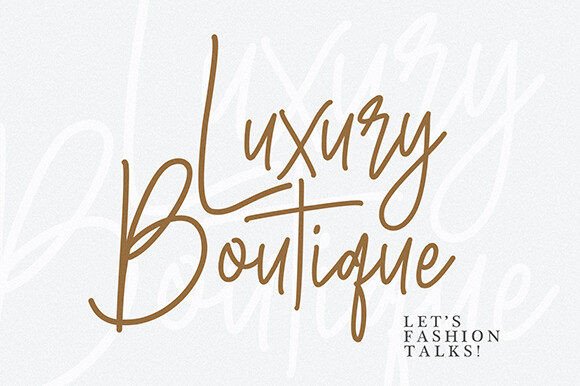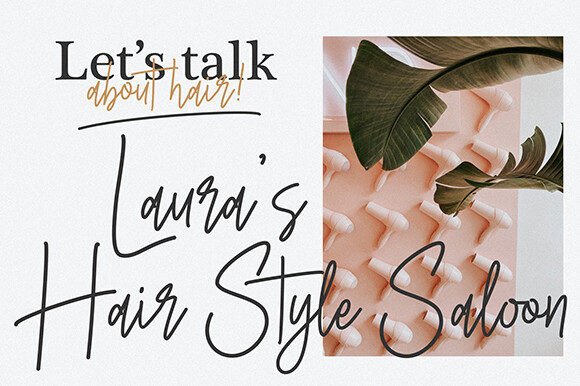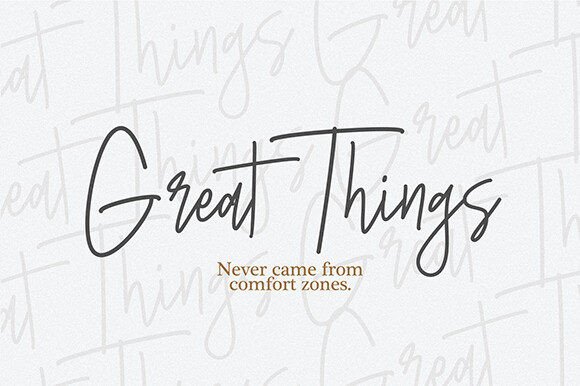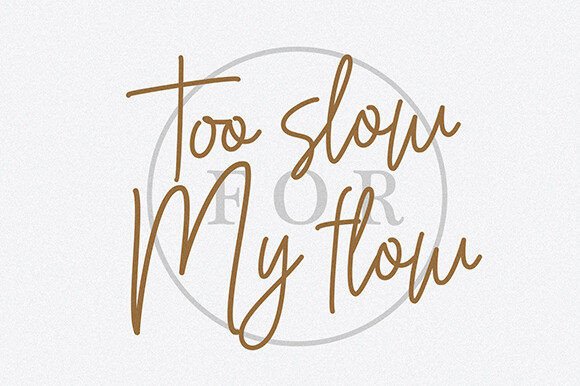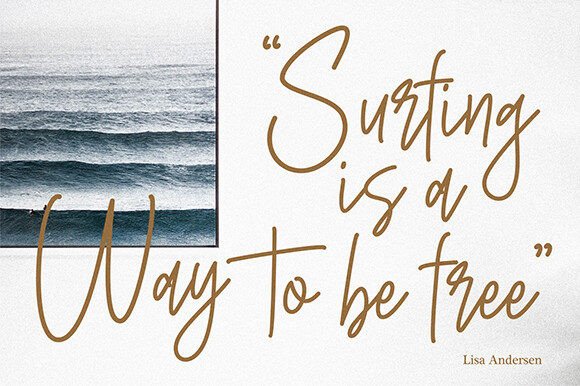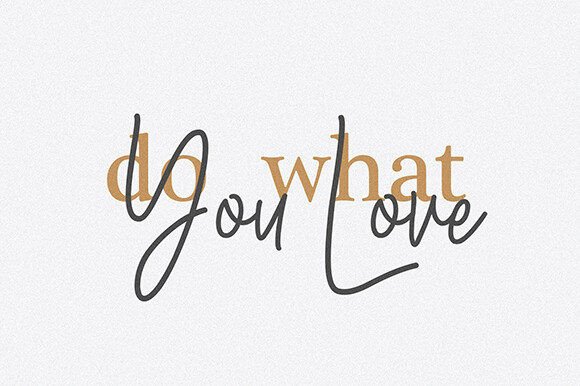
Betterhost Font: Elevate Your Designs with a Touch of Elegance
In the world of typography, a font can make or break a design. For designers and crafters looking to add a touch of elegance and sophistication to their projects, the Betterhost font is an excellent choice. This modern and fresh script font boasts a beautiful handwritten style that exudes natural charm and style.
What Makes Betterhost Font Stand Out?
Betterhost is a stunning Monoline script font that is perfect for any project that requires a handwritten touch. Its elegant and stylish design makes it an ideal choice for a wide range of applications, including wedding invitation card designs, logotypes, business card designs, advertisements, product designs, stationery, product packaging, quotes, and more.
Key Features of Betterhost Font
- Handwritten Style: Betterhost font features a beautiful handwritten style that gives it a natural and elegant look.
- Monoline Script: The font’s monoline script design makes it perfect for adding a touch of sophistication to any project.
- PUA Encoded: Betterhost font is PUA encoded, which means you can easily access all the amazing glyphs and ligatures.
- Versatile: The font is suitable for a wide range of projects, from wedding invitations to product packaging.
Use Cases for Betterhost Font
The Betterhost font is incredibly versatile and can be used in various design projects. Here are some use cases where this font truly shines:
- Wedding Invitation Card Designs: Add a touch of elegance to your wedding invitation cards with the Betterhost font.
- Logotypes: Create stunning logotypes for your brand or business with this beautiful script font.
- Business Card Designs: Stand out from the crowd with professionally designed business cards featuring the Betterhost font.
- Advertisements: Use the Betterhost font to create eye-catching advertisements that grab attention.
- Product Designs: Add a touch of sophistication to your product designs with this elegant font.
- Stationery: Create beautiful stationery, such as letterheads and notebooks, with the Betterhost font.
- Product Packaging: Elevate your product packaging with a touch of elegance and style.
- Quotes: Use the Betterhost font to create inspiring and visually appealing quotes.
Why Choose Betterhost Font?
With so many fonts available, why choose Betterhost? Here are a few reasons why this font stands out:
- Unique Design: The Betterhost font features a unique and stylish design that sets it apart from other fonts.
- Ease of Use: The font is PUA encoded, making it easy to access all the glyphs and ligatures.
- Versatility: Betterhost font is suitable for a wide range of projects, making it a great addition to any designer’s toolkit.
In conclusion, the Betterhost font is an excellent choice for designers and crafters looking to add a touch of elegance and sophistication to their projects. With its beautiful handwritten style, monoline script design, and PUA encoding, this font is perfect for a wide range of applications. Whether you’re designing wedding invitation cards, logotypes, or product packaging, the Betterhost font is sure to elevate your designs to the next level.